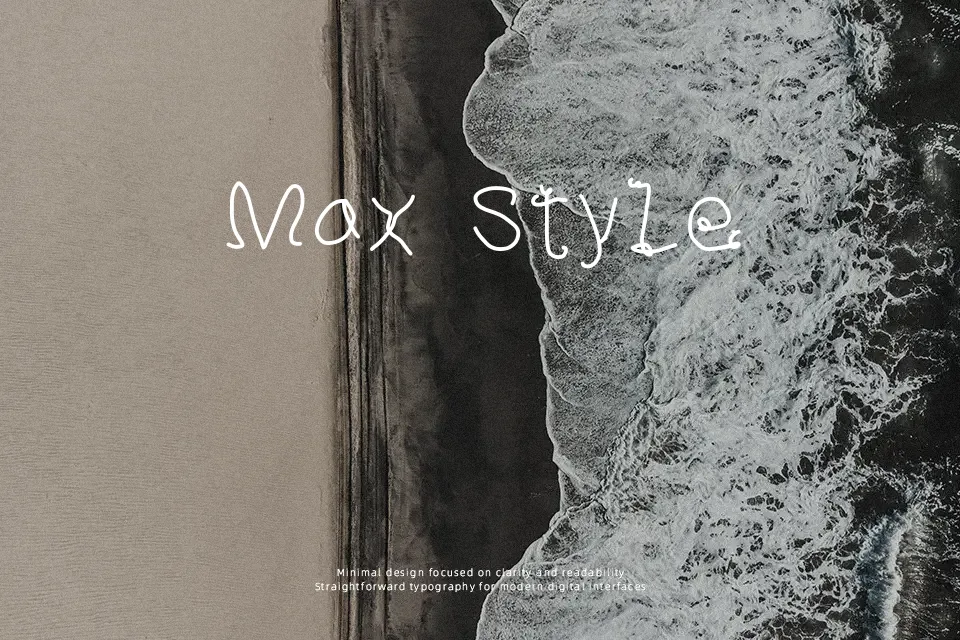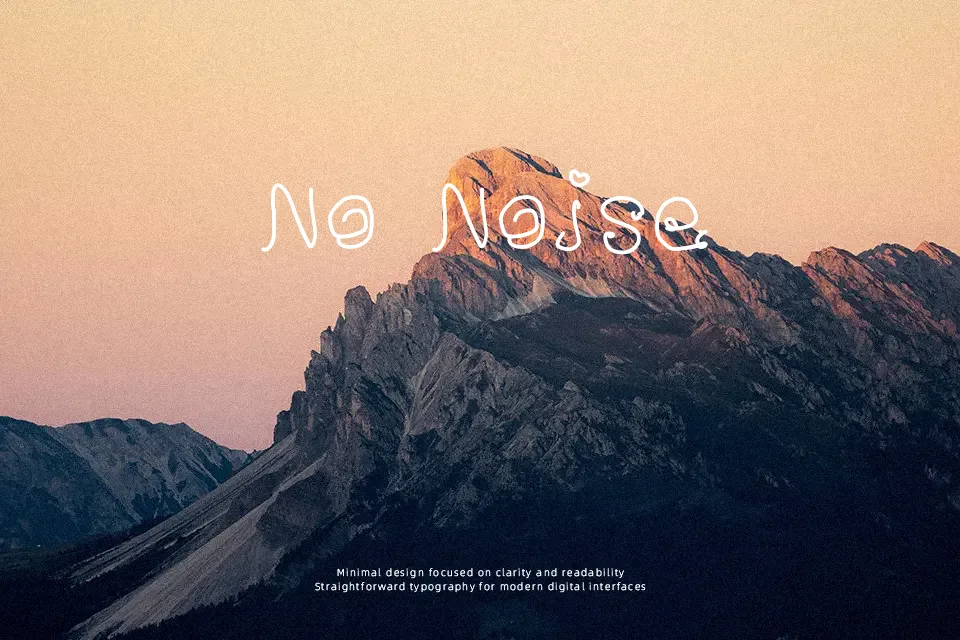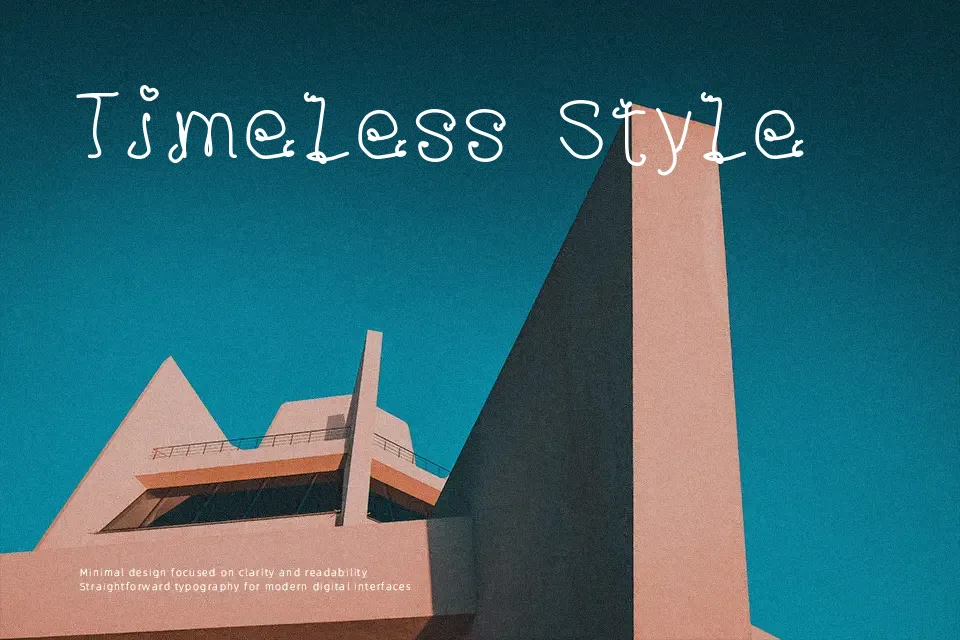
Shine Star Curls MS Font
Designed by kizzles the cat
Shine Star Curls MS Font presents an ornate decorative style characterized by exaggerated spiral terminals, looping flourishes, and uneven baseline alignments across individual glyphs. The strokes maintain a fairly uniform, medium weight that emphasizes the rounded curves without heavy contrast. Generous spacing accommodates the sprawling swashes, helping isolated headings stay legible across craft packaging, scrapbooking designs, and thematic birthday flyers. However, the heavy decorative ornamentation causes character forms to collide visually in dense text layouts. Extended paragraph reading becomes tiring, making the typeface impractical for small captions, body copy, or formal editorial compositions.
Best For: birthday party invitations, greeting card headlines, craft project packaging, scrapbook covers
Not Ideal For: long body text, corporate annual reports, dense editorial layouts, mobile interface labels
Perfect for headline, holiday, and invitation, with a artistic and decorative style.